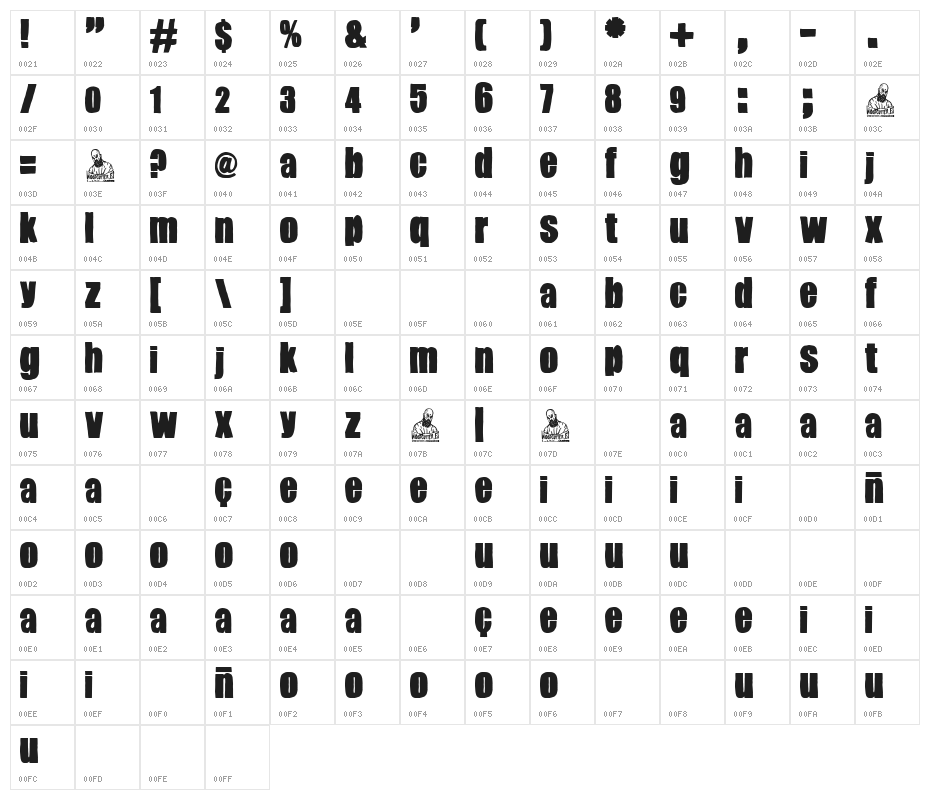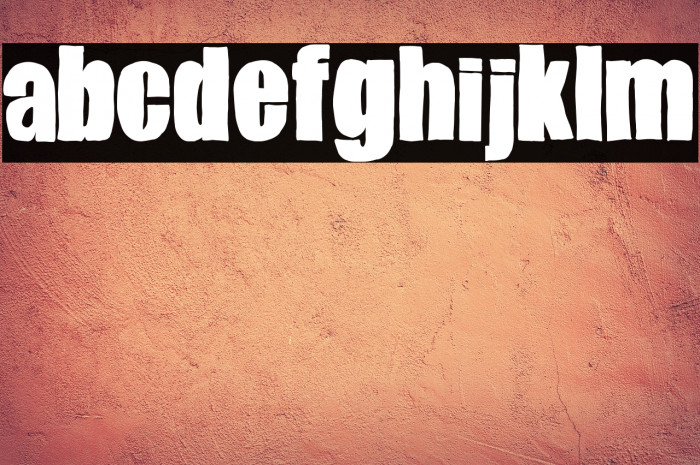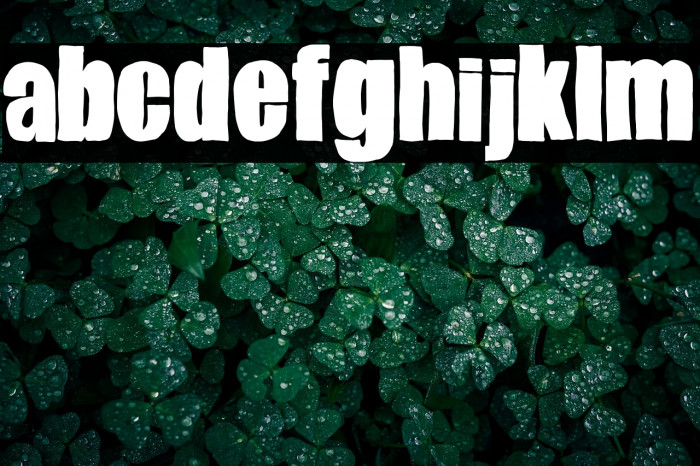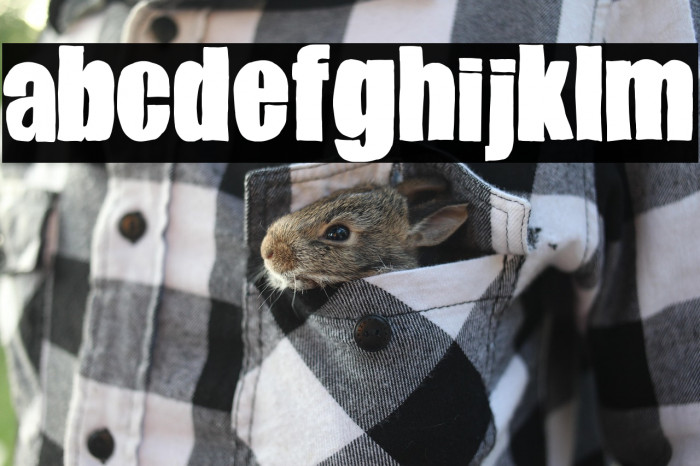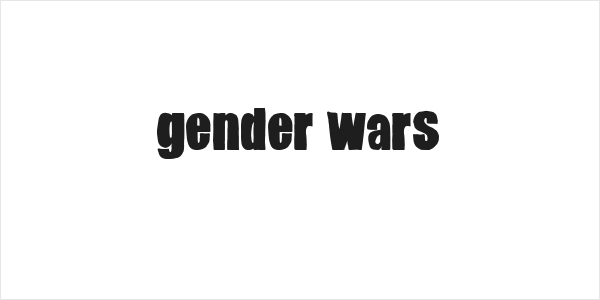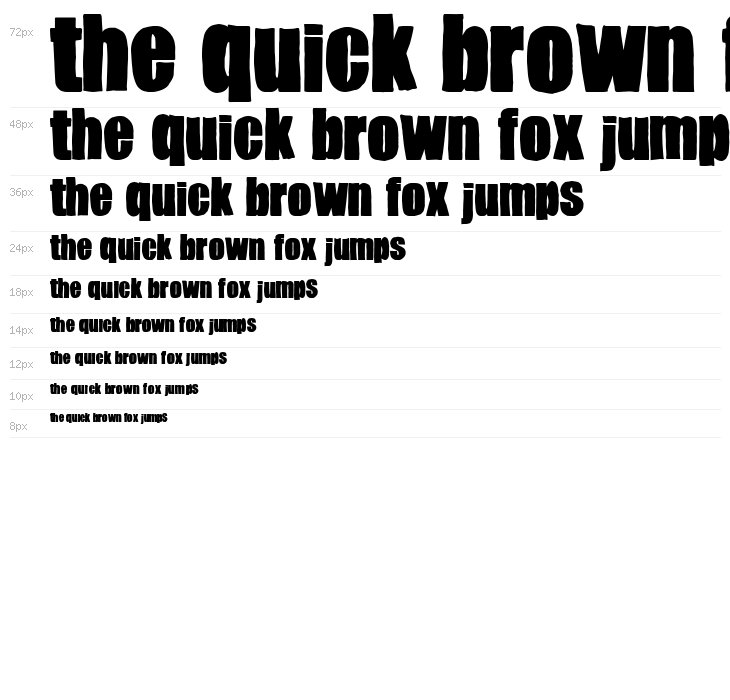
Gender Wars Font
Gender Wars Description
A bold, heavy display typeface with irregular, blocky letterforms and a distressed, hand-cut appearance. The characters have uneven edges and varying widths, giving a rugged, impactful look.
Overall StyleDecorative, Grunge, Handcrafted
Use CaseHeadlines, Posters, Logos, Short impactful text
Proposed ProjectsPosters, album covers, protest graphics, event flyers, editorial headlines, branding for edgy or alternative products.